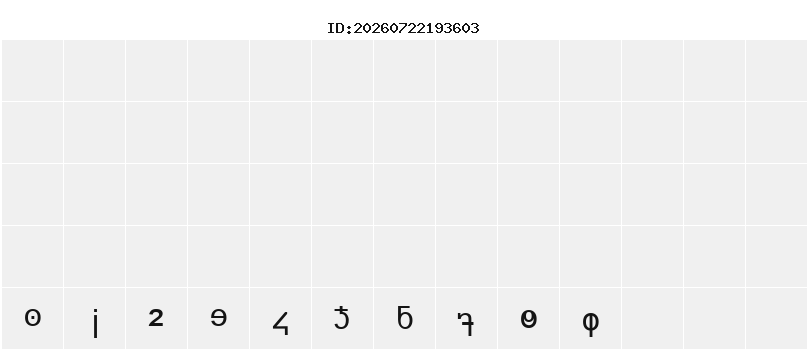
• Designer: Cédric Dequidt
About minuscule digits.ttf
minuscule digits.ttf is a modern, elegant sans-serif font designed for ultimate readability and visual harmony. Perfect for branding, headlines, web design, and print materials.